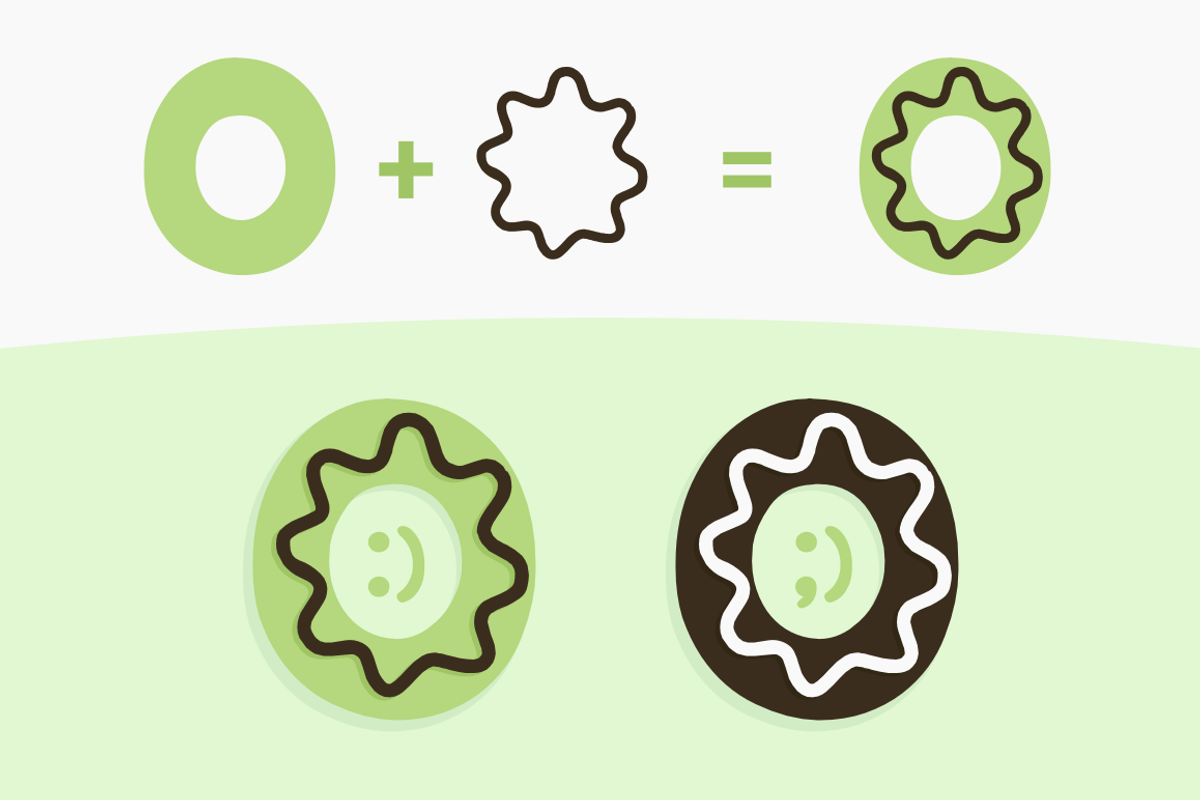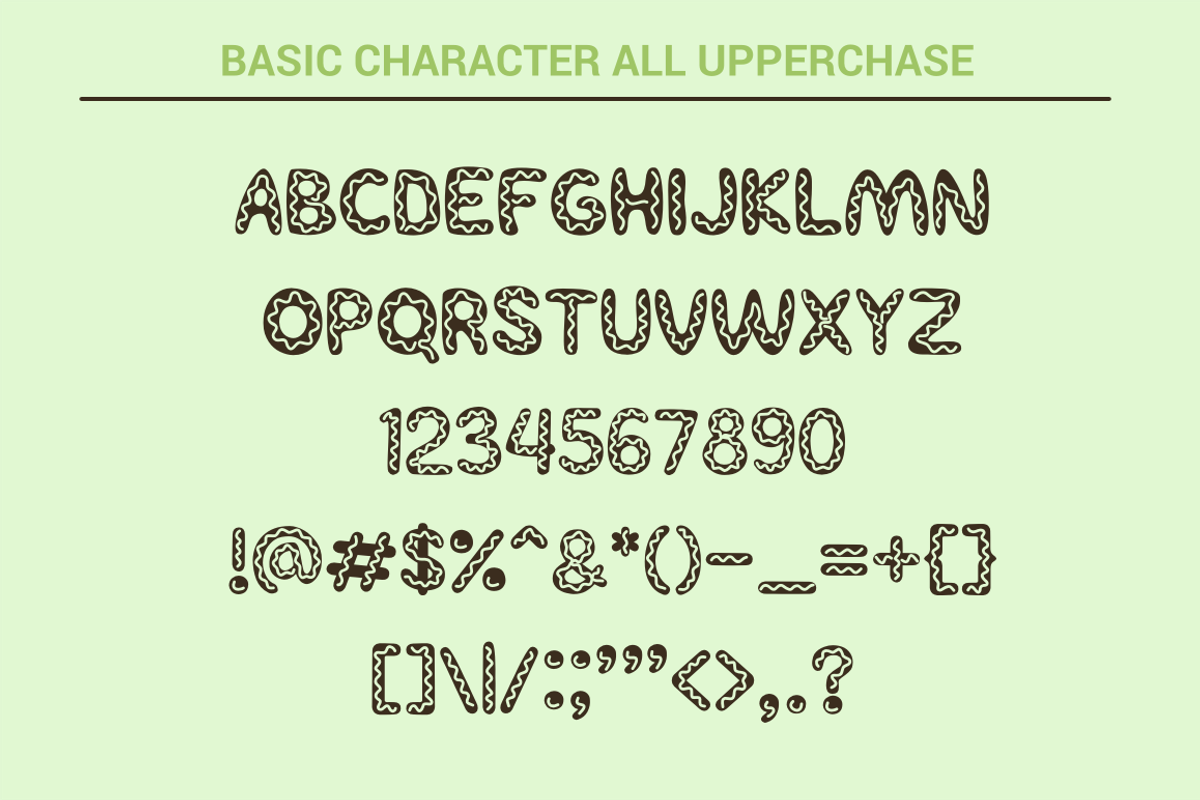
Sweety Donut Fonts - Fun Typo
Sweety Donut Fonts - Fun Typo by YandiDesigns is a font selected for branding, posters, packaging, typography.
- Sweety Cream Cream
- Sweety Donut Donut
- Sweety Regular
Sweety Donut Fonts - Fun Typo by YandiDesigns fits naturally into Branding, posters, packaging, typography.